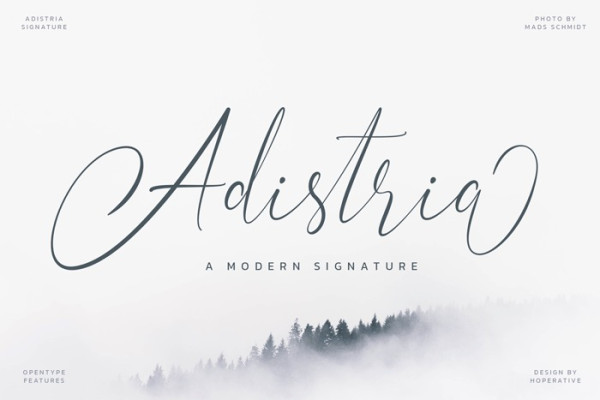
Adistria Font
Adistria Font, is a modern and calligraphy handwritten font. It features gorgeous swashes and ligatures that make this script incredibly versatile. Adistria Font is PUA encoded which means you can access all of the cute glyphs and swashes with ease! It also features a wealth of special features including alternate glyphs and ligatures.